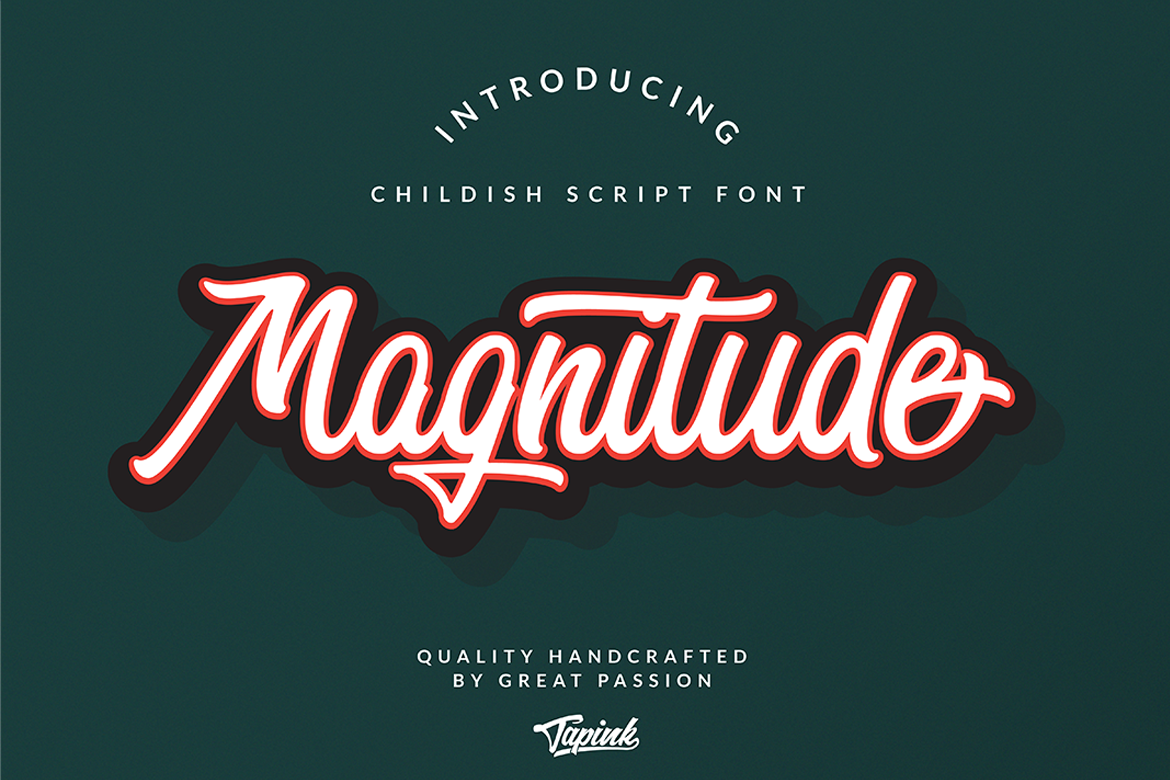
Magnitude Script Font
Meet Magnitude Script Font
Magnitude is a handmade script font with elegant & stylish style, classy & catchy look. This come up with opentype features with , stylistic set, ligatures to mix and match the design.
this font is great for your next creative project such as logos, printed
quotes, product packaging, headers, Logotype,
Letterhead, Poster, Apparel Design, Label, and etc.